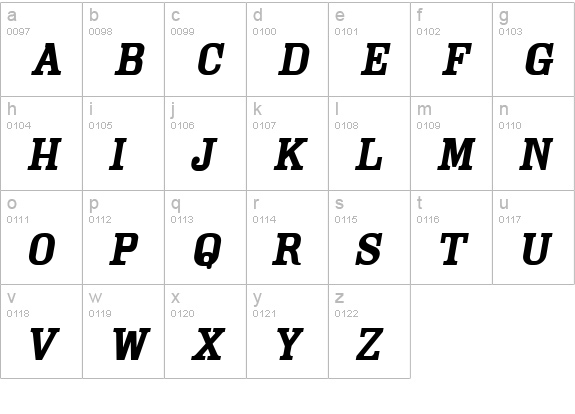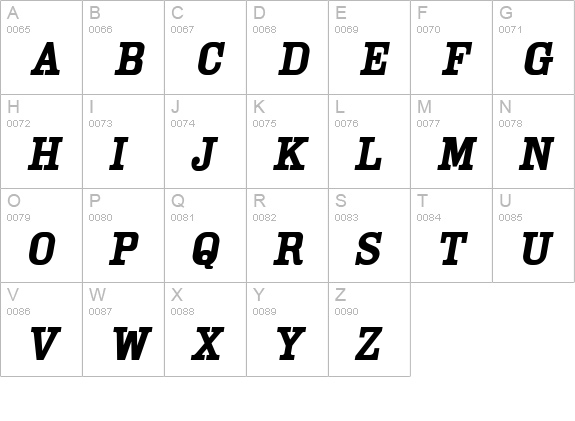
Cam Oblique Font Details
Cam Oblique is a distinctive, italic variant in the Cam typeface family \xE2\x80\x94 well suited to design and typography projects.
Cam Oblique font is a stylish and modern typeface that exudes elegance and sophistication. Its sleek design features subtle slanted angles that add a unique touch to any project. The clean lines and smooth curves of this font make it perfect for a variety of uses, from branding to editorial design. What sets Cam Oblique font apart is not only its aesthetic appeal but also its versatility. Whether you're working on a fashion magazine layout, creating a logo for a high-end brand, or designing a sleek website, this font will elevate your project to the next level. And the best part? Cam Oblique font is available for free download at FontsMarket.com. So you can enhance your designs with this stunning typeface without breaking the bank. Don't miss out on the opportunity to add Cam Oblique font to your font library and take your design projects to new heights.